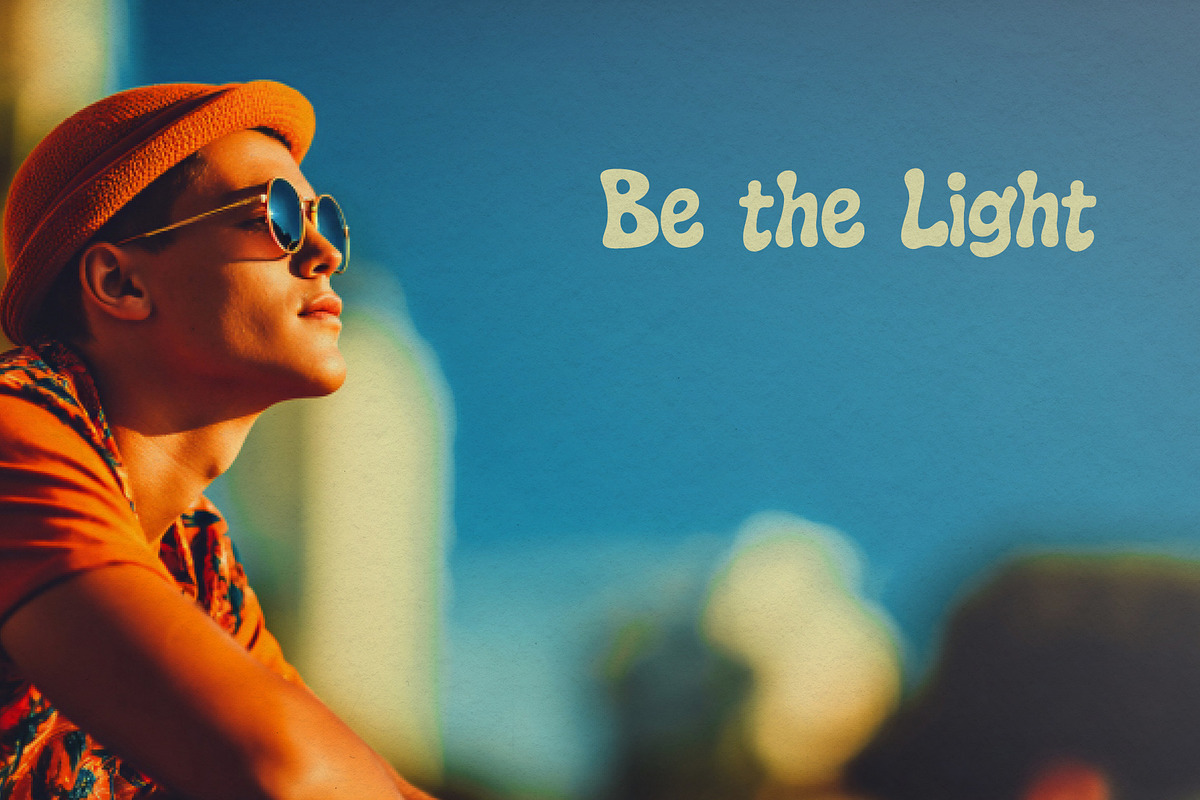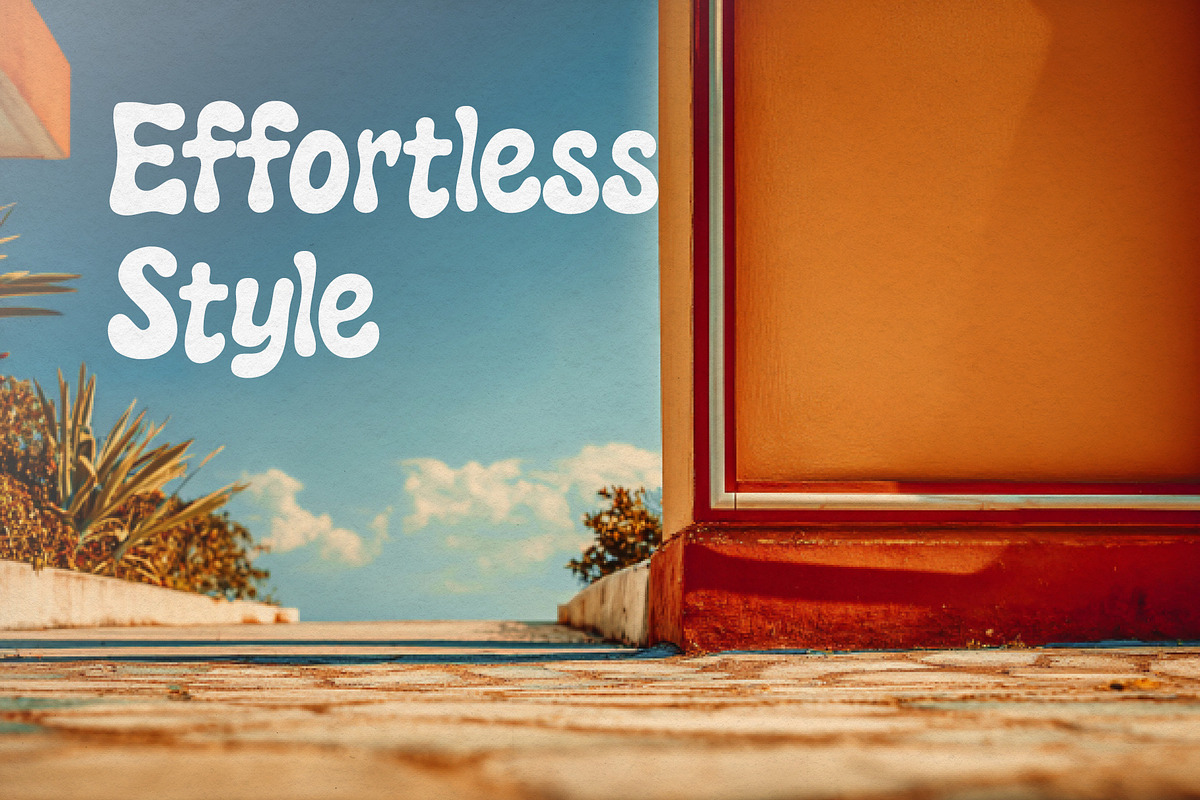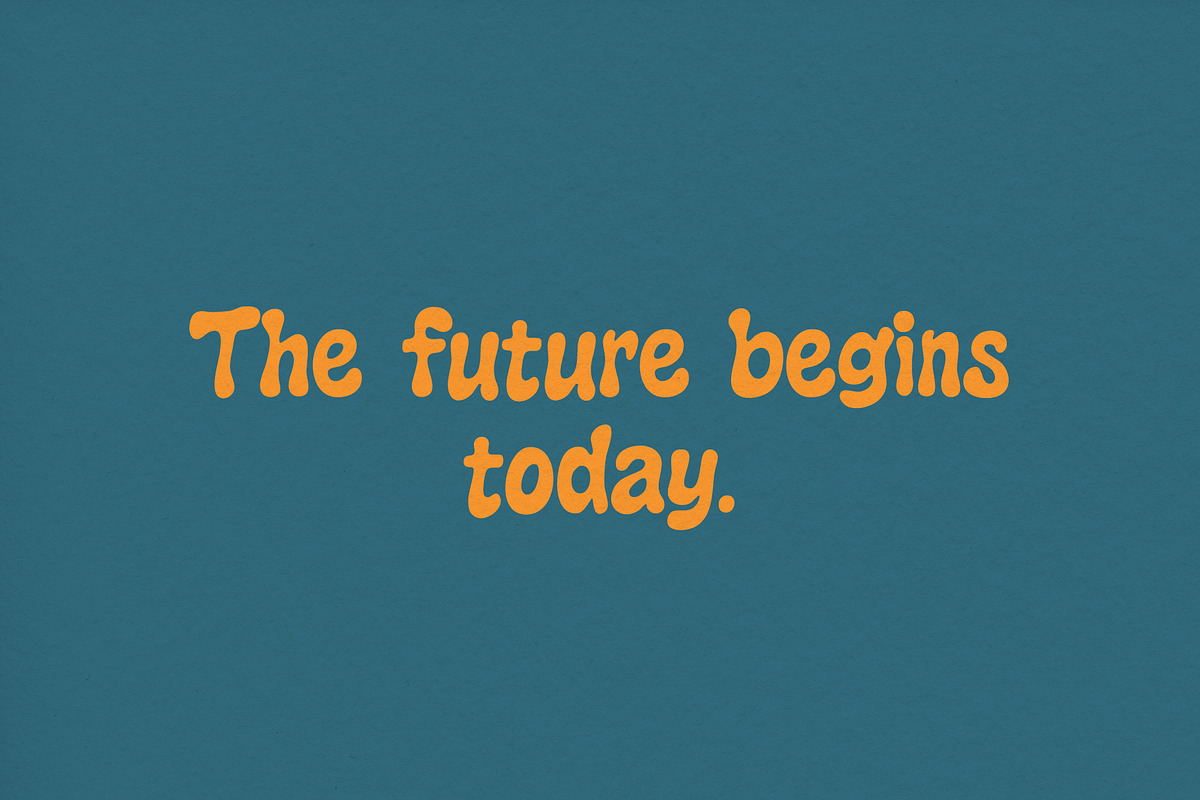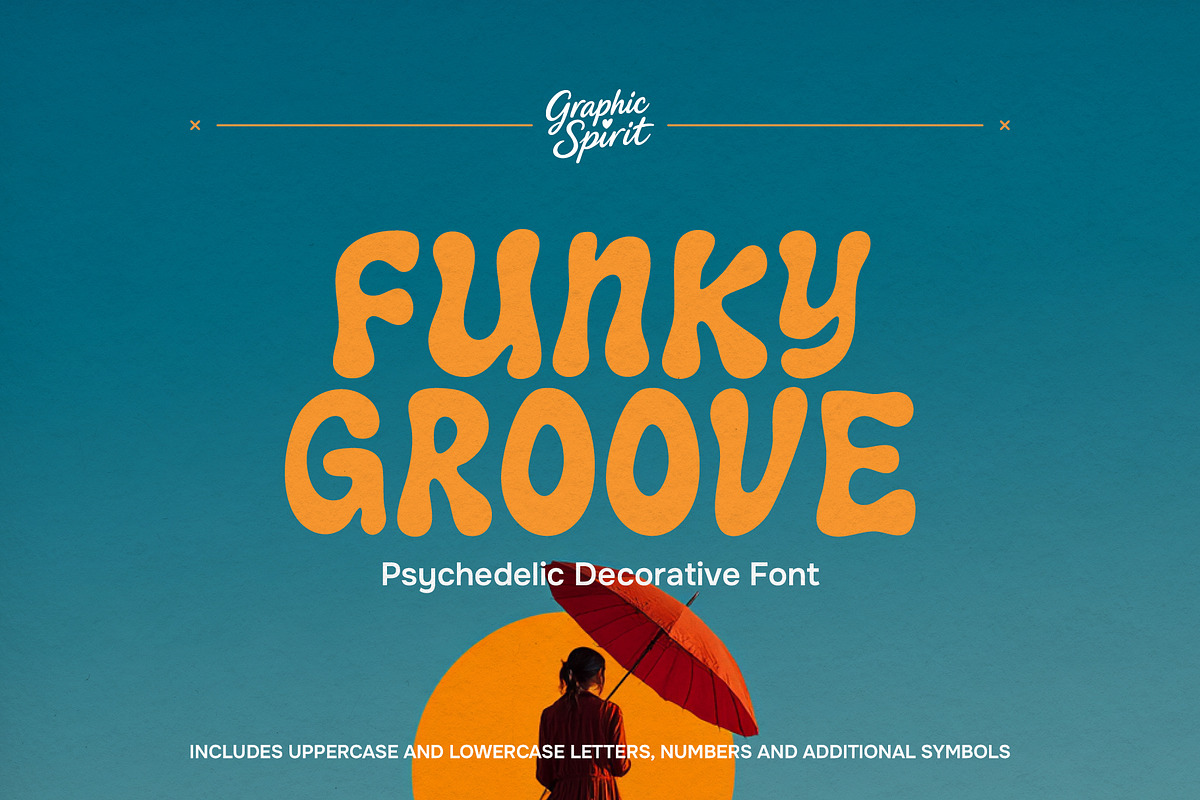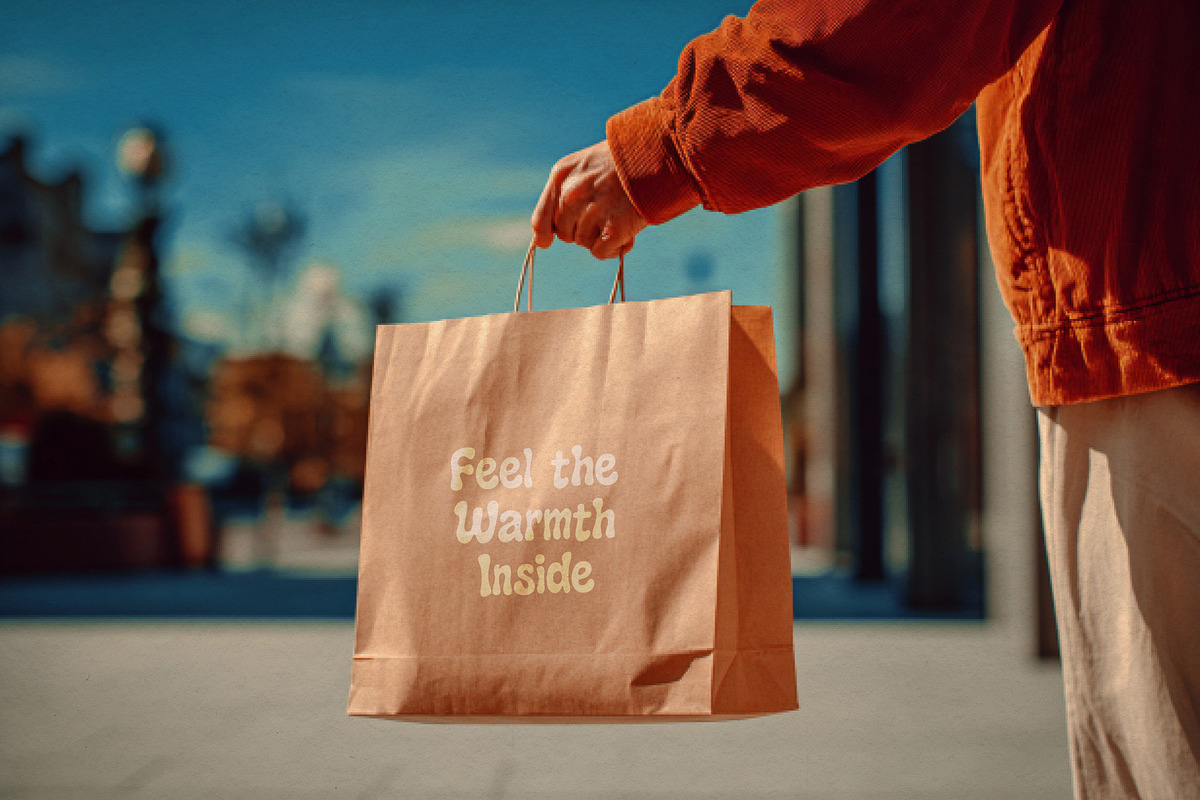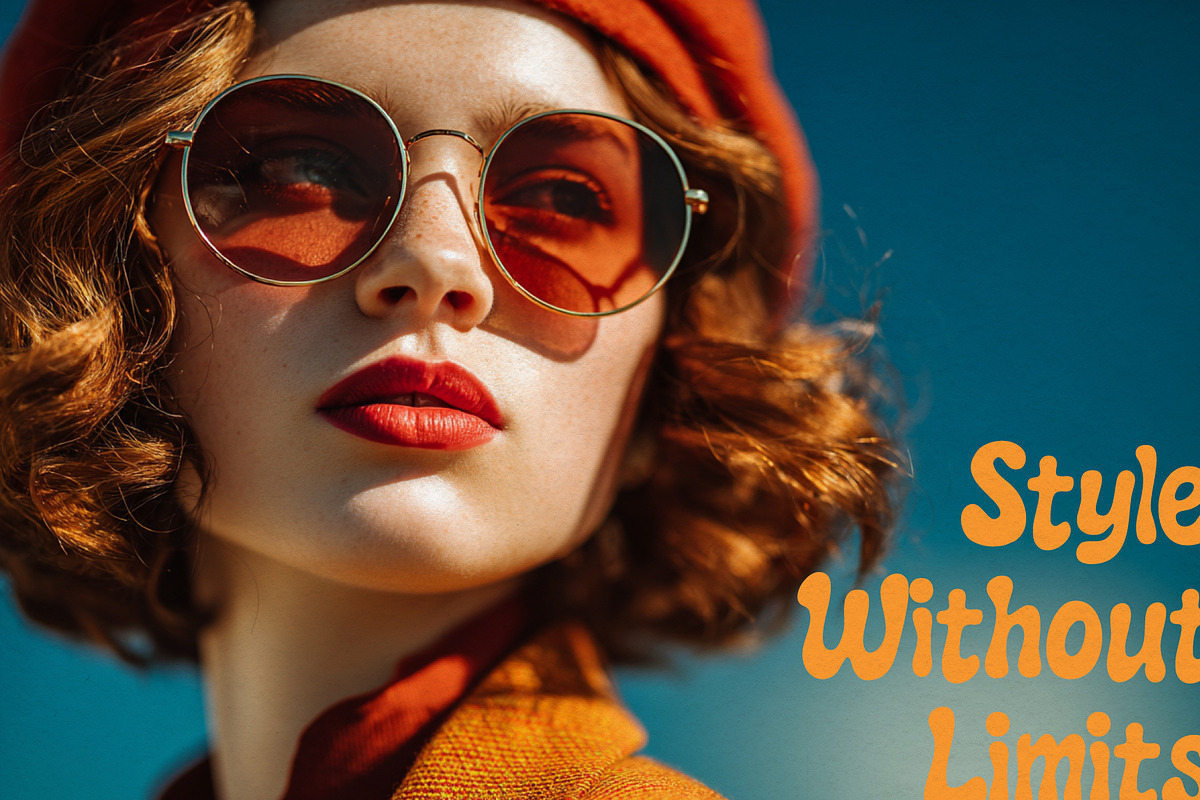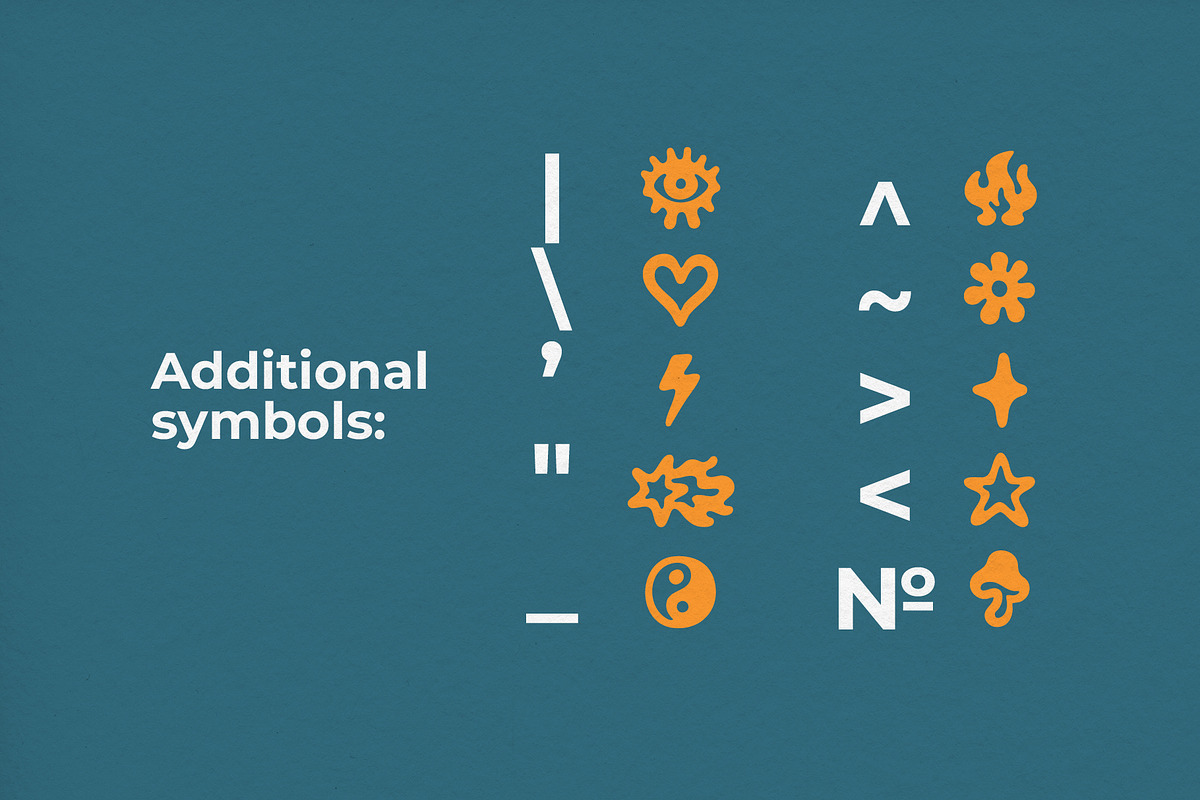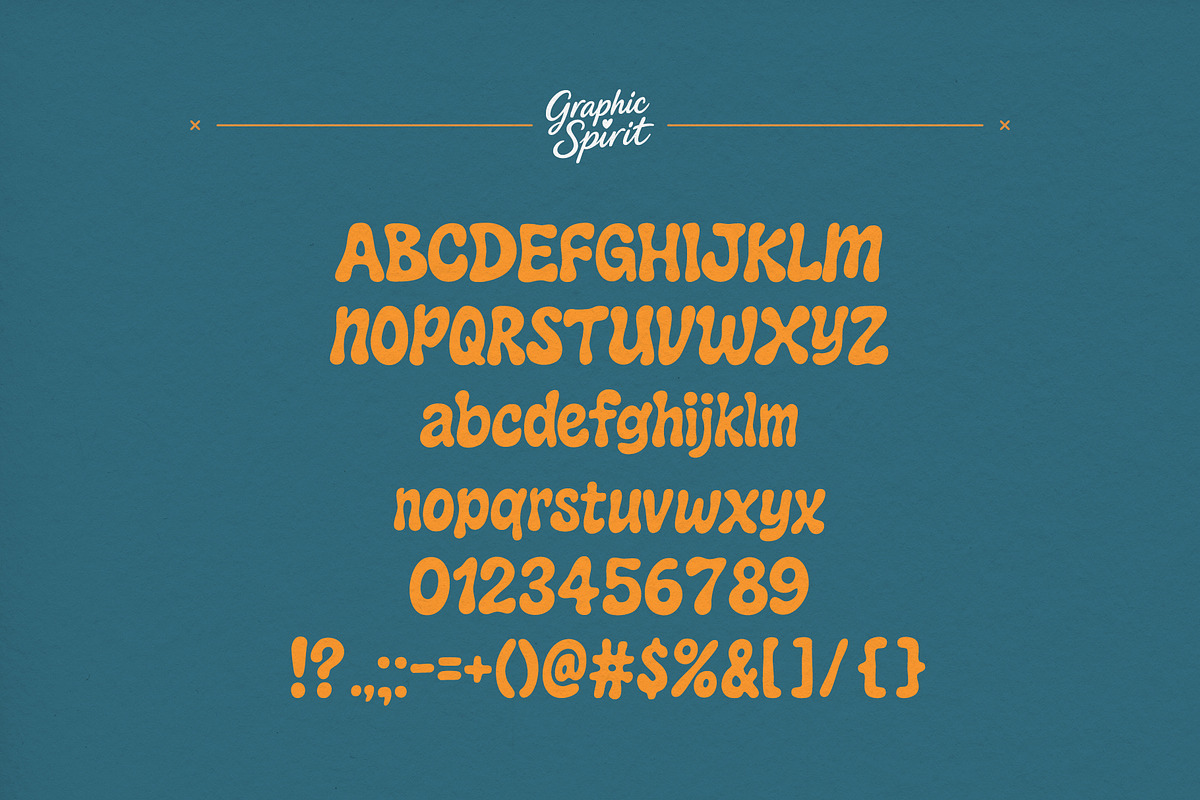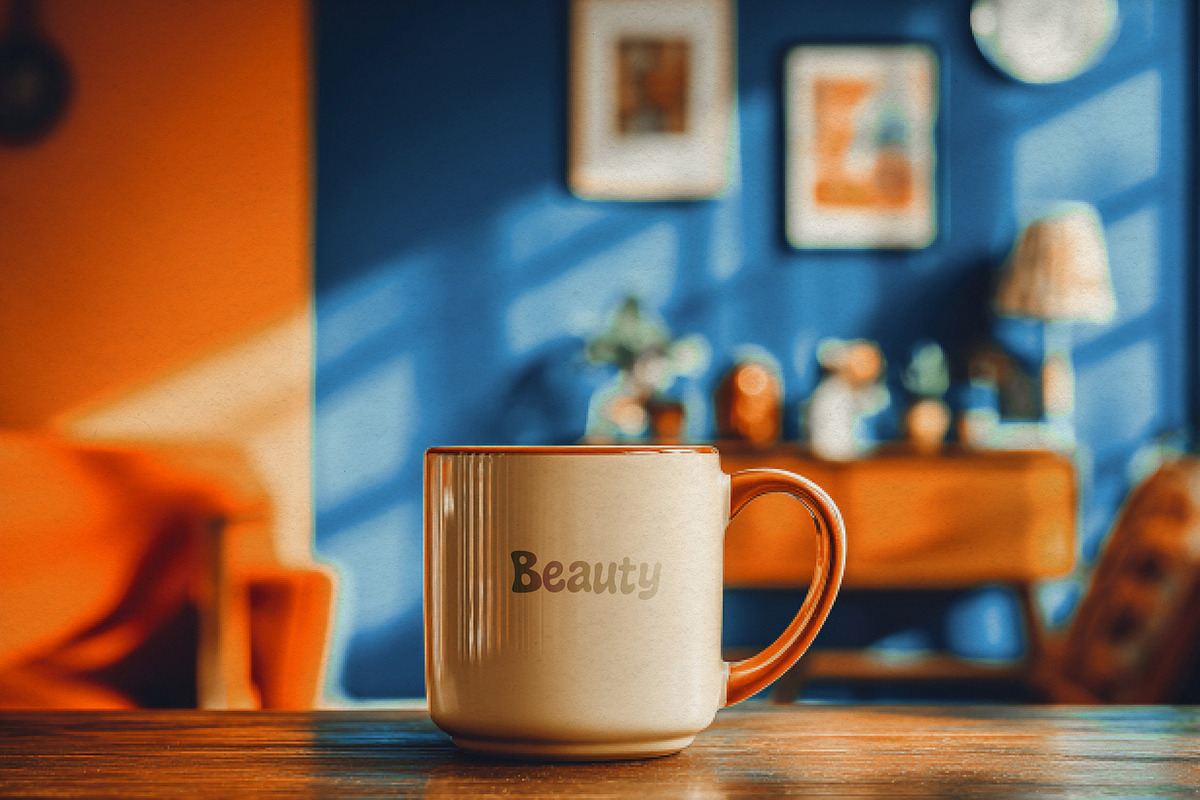
Funky Groove Psychedelic Font
🌀Unleash the spirit of the '60s with Funky Groove, a psychedelic decorative font that radiates positive vibes. Its flowing, groovy baselines and playful characters are perfect for adding a touch of retro flair to your designs. Instantly elevate posters, album covers, branding, and social media graphics with its unique, hand-drawn aesthetic.🌈